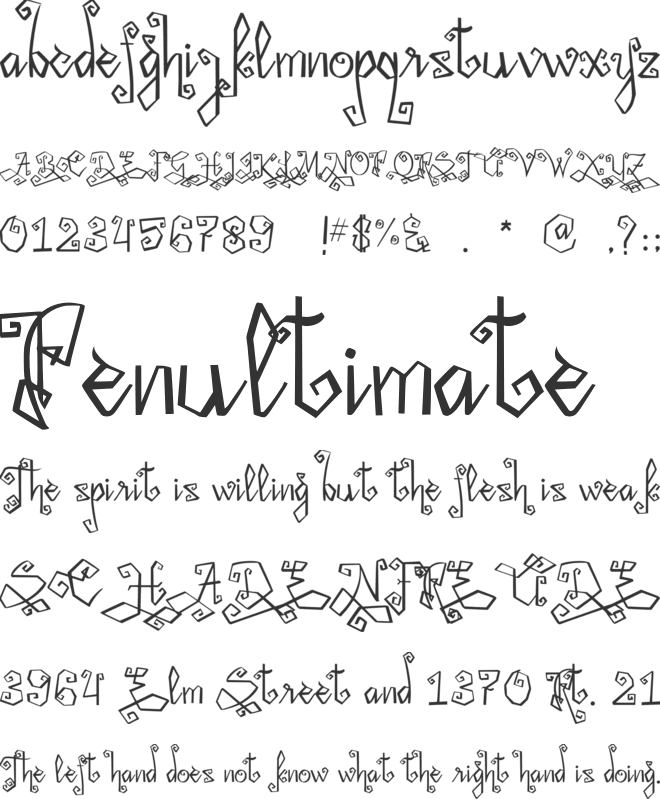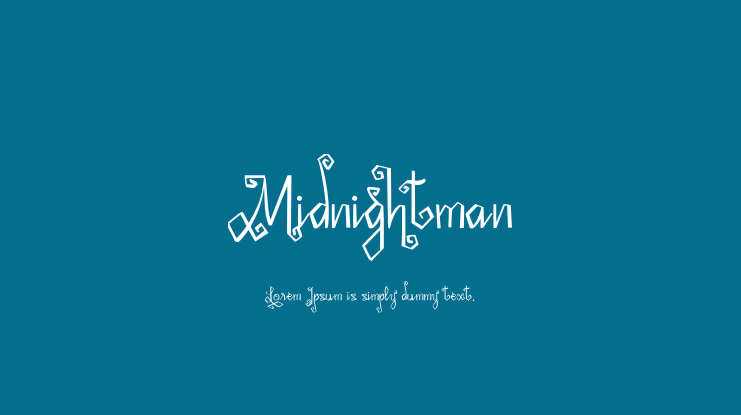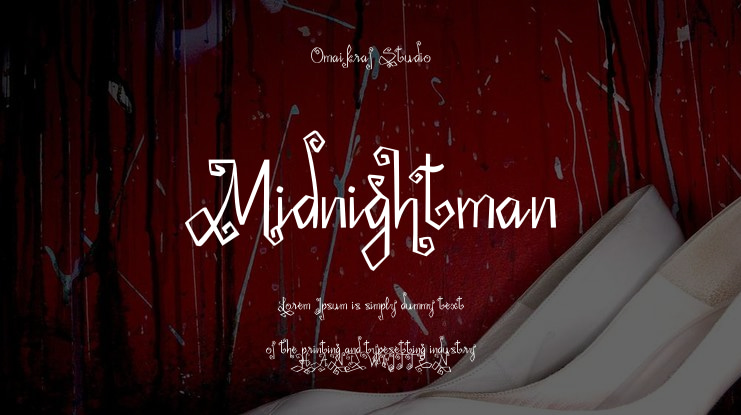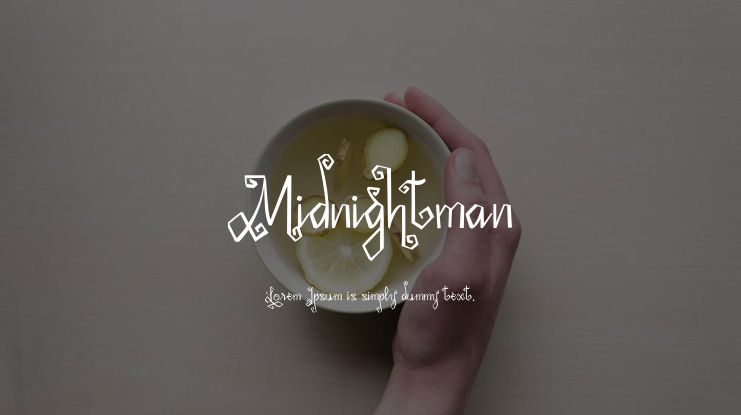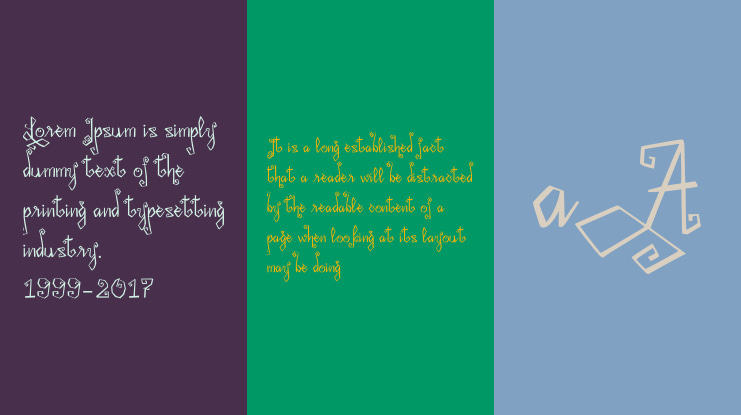
Midnightman Font
NOTE: This font is for PERSONAL USE ONLY! To purchase a commercial license, please visit: https://bit.ly/3pA3or5. Midnightman is a display font designed to embrace the ambiance of spooky and mysterious elements around us. It includes both uppercase and lowercase letters, along with some alternates to enhance your entire design's appearance! For any questions, please visit https://omaikraf.com/contact/.